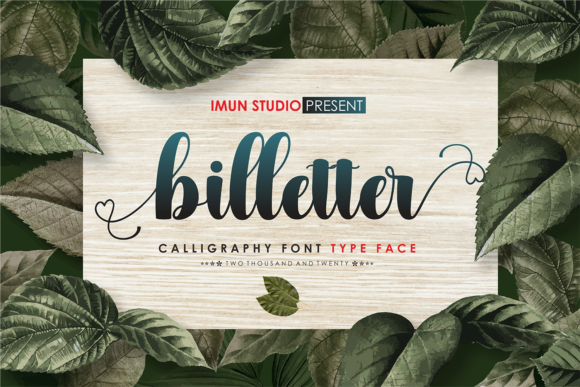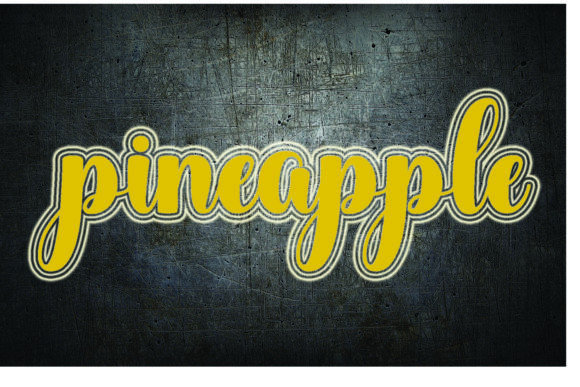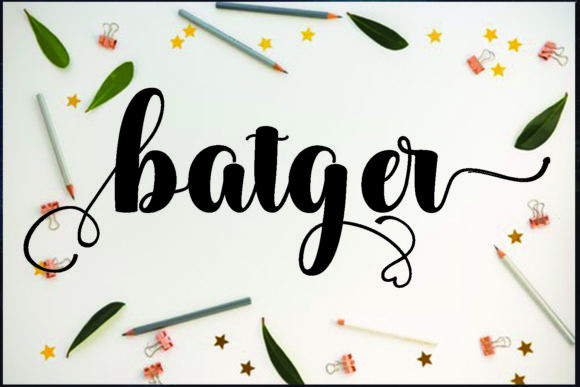
Billetter Font
Billetter is a beautiful handwritten font, carefully handcrafted to become a true favorite. Whether you’re looking for fonts for Instagram or calligraphy scripts for DIY projects, Billetter will turn any creative idea into a true piece of art!